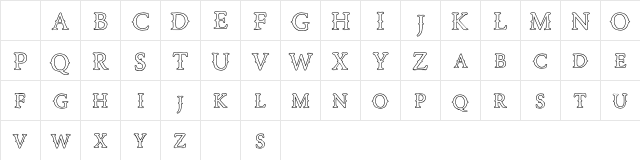
Road Race Extra Outline is built around its visual character rather than neutral utility - its distinctive forms are designed to make an impression at display sizes.
Font Pairing: Pair with a clean neutral sans-serif for body copy to let Road Race Extra Outline's character lead without overwhelming the composition.
Pro Tip: Use Road Race Extra Outline exclusively at display sizes - it was designed to be seen, not read at length. Let a neutral companion handle body copy.